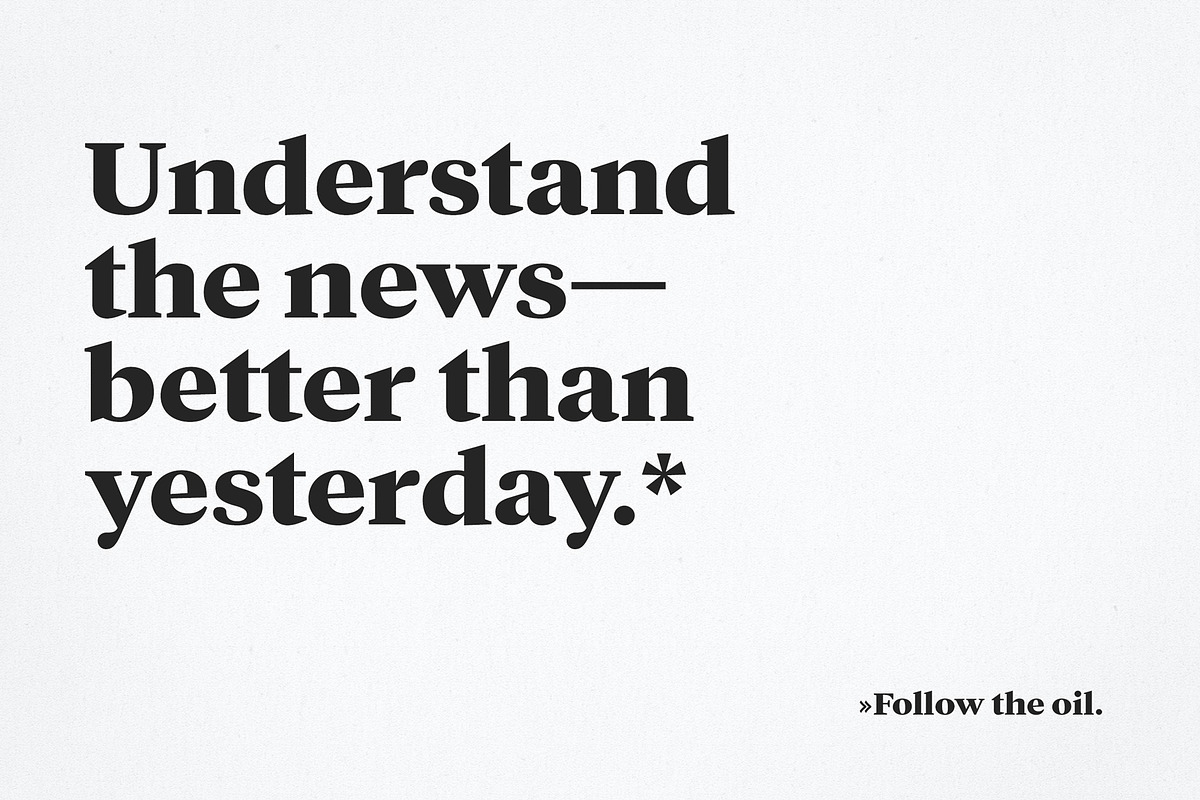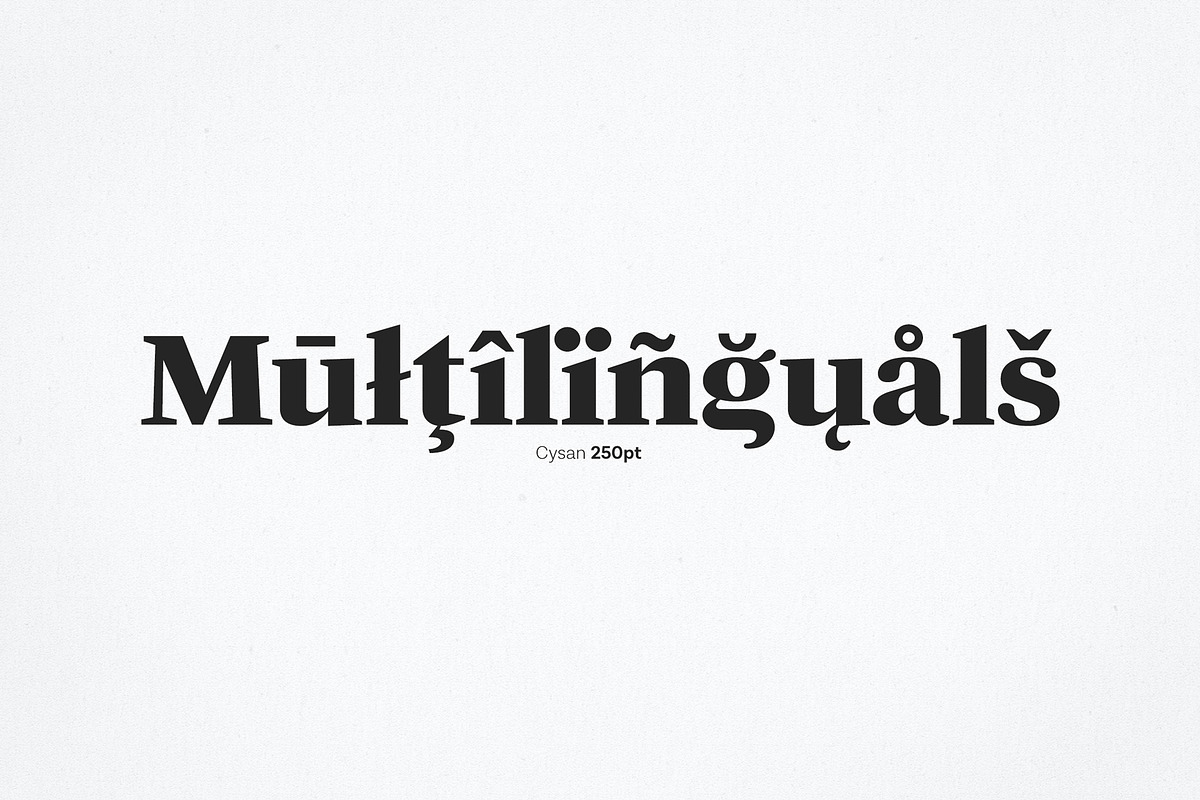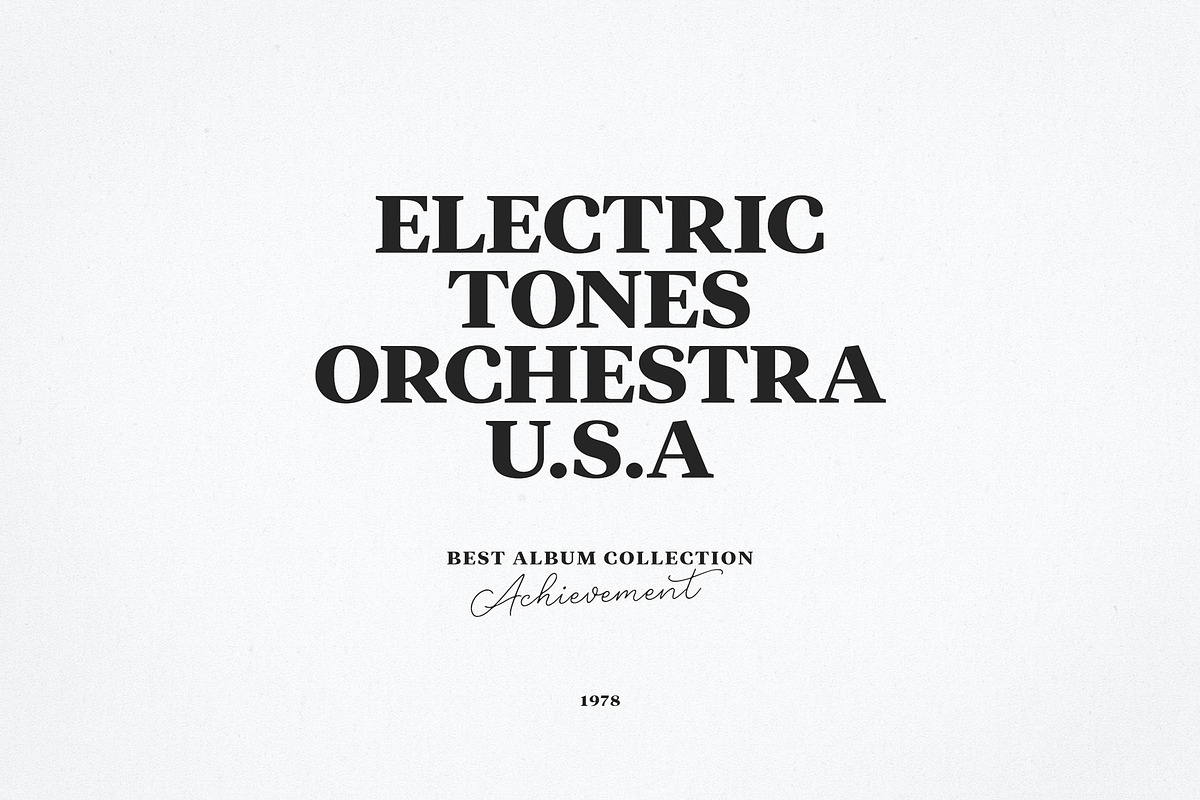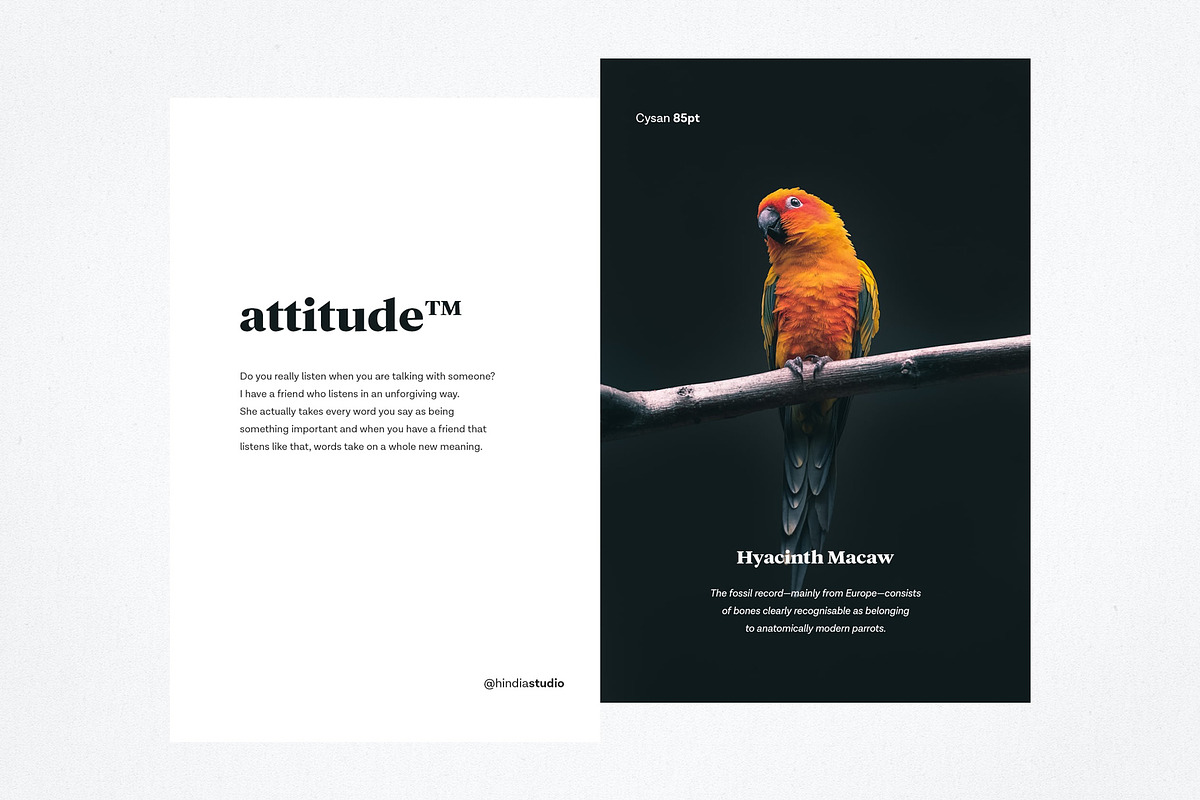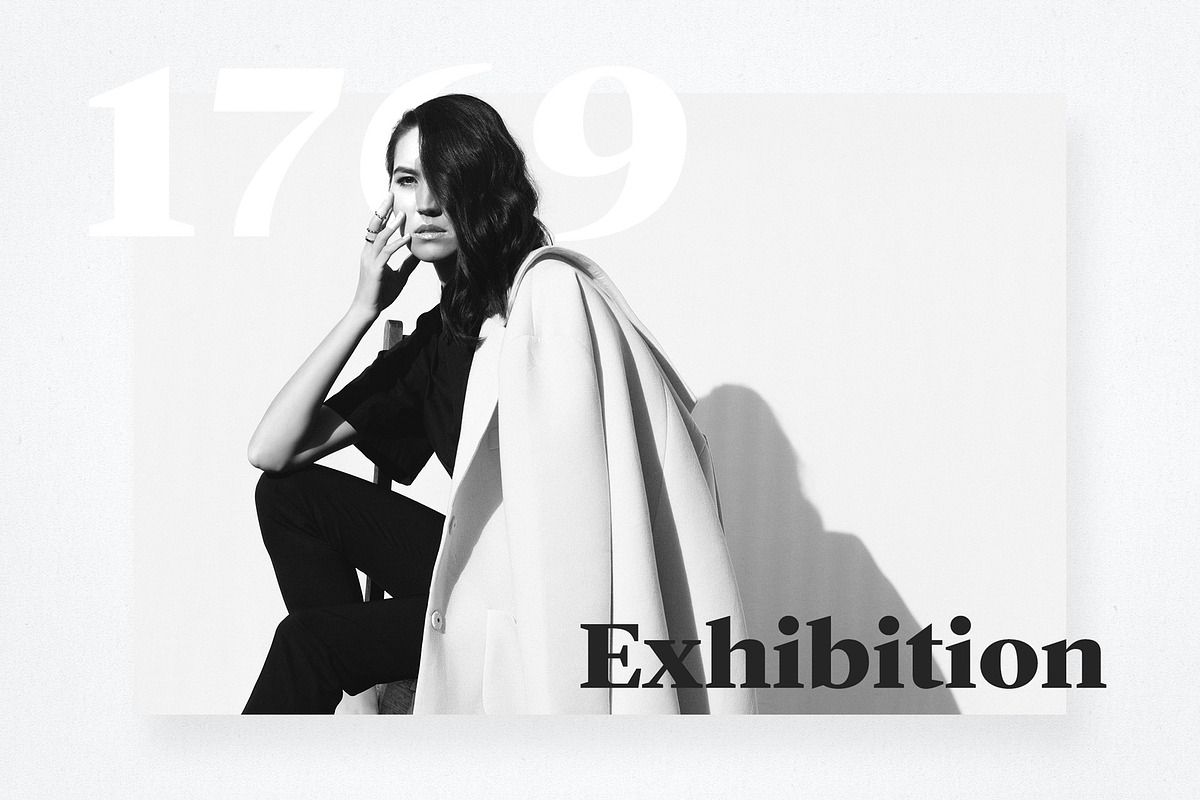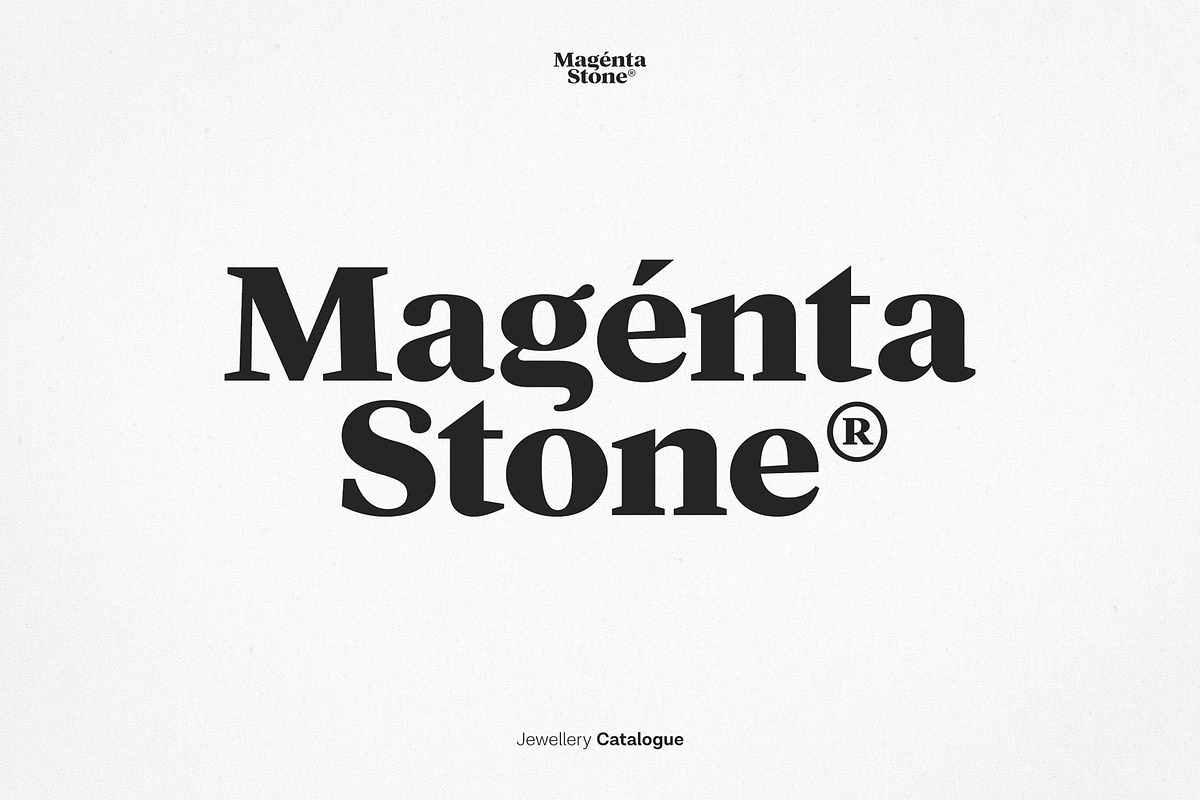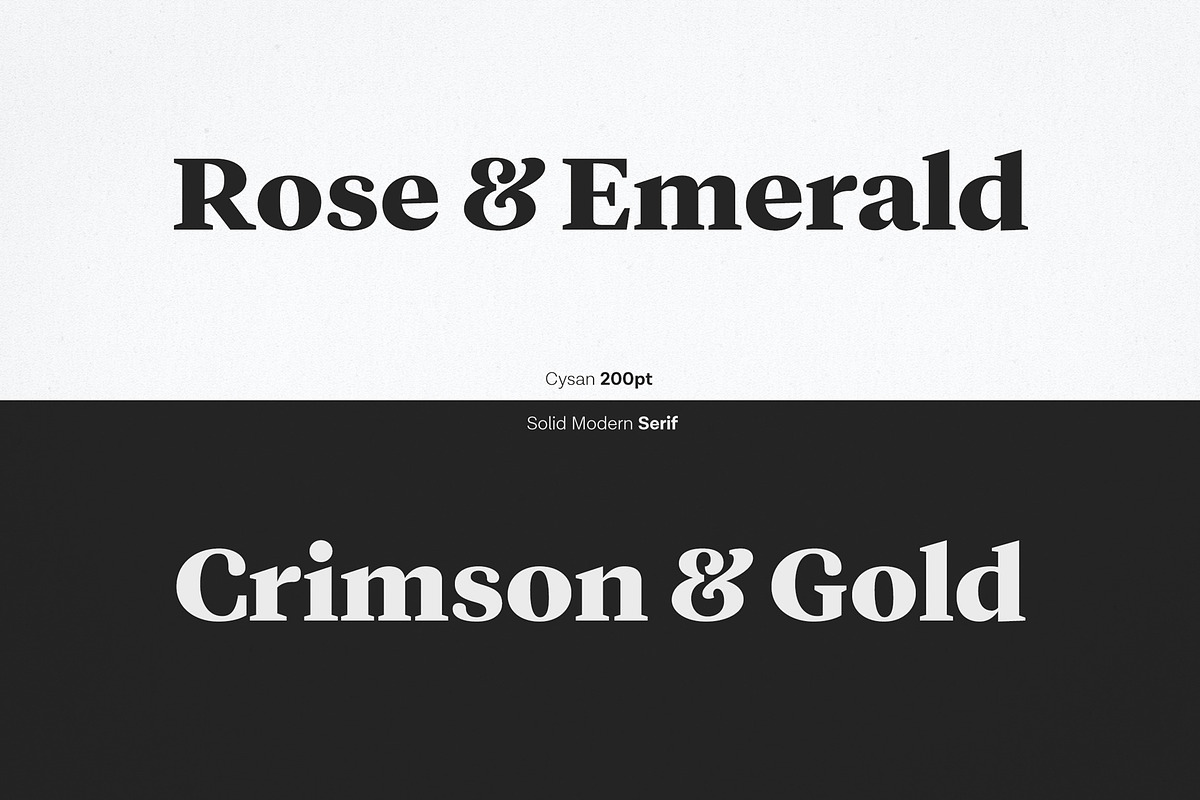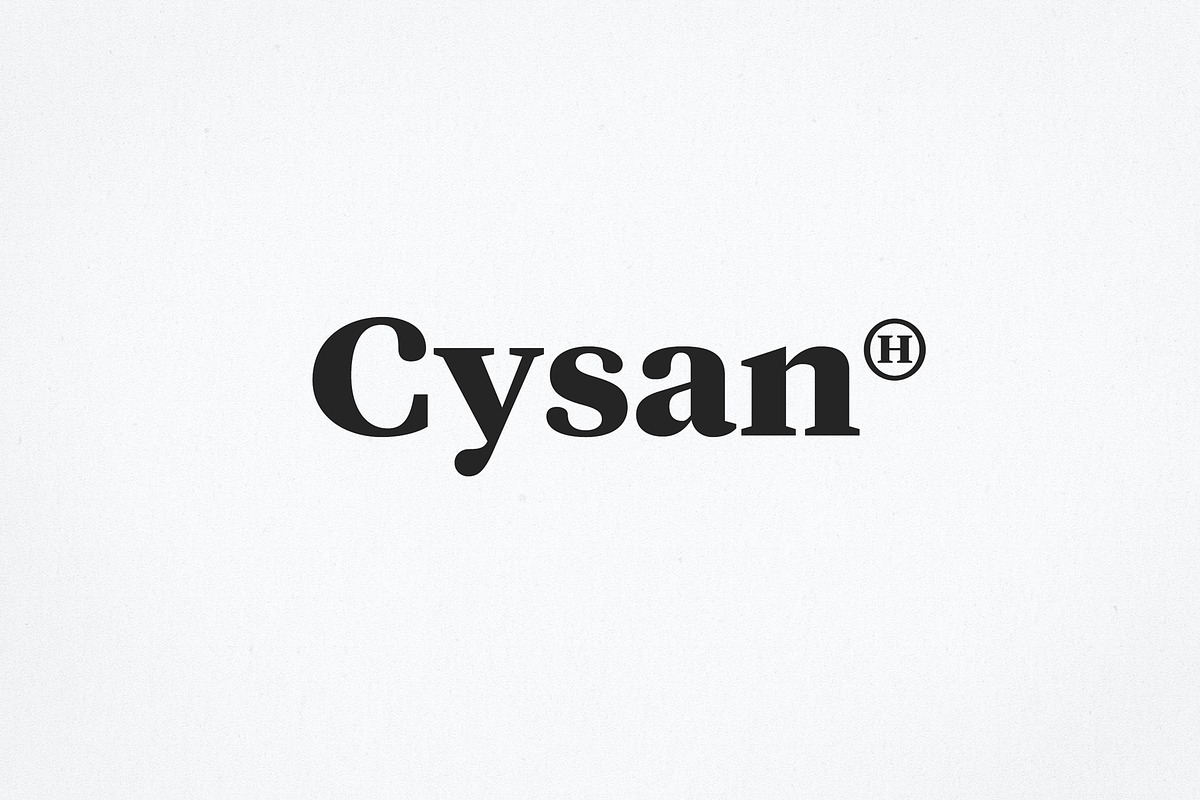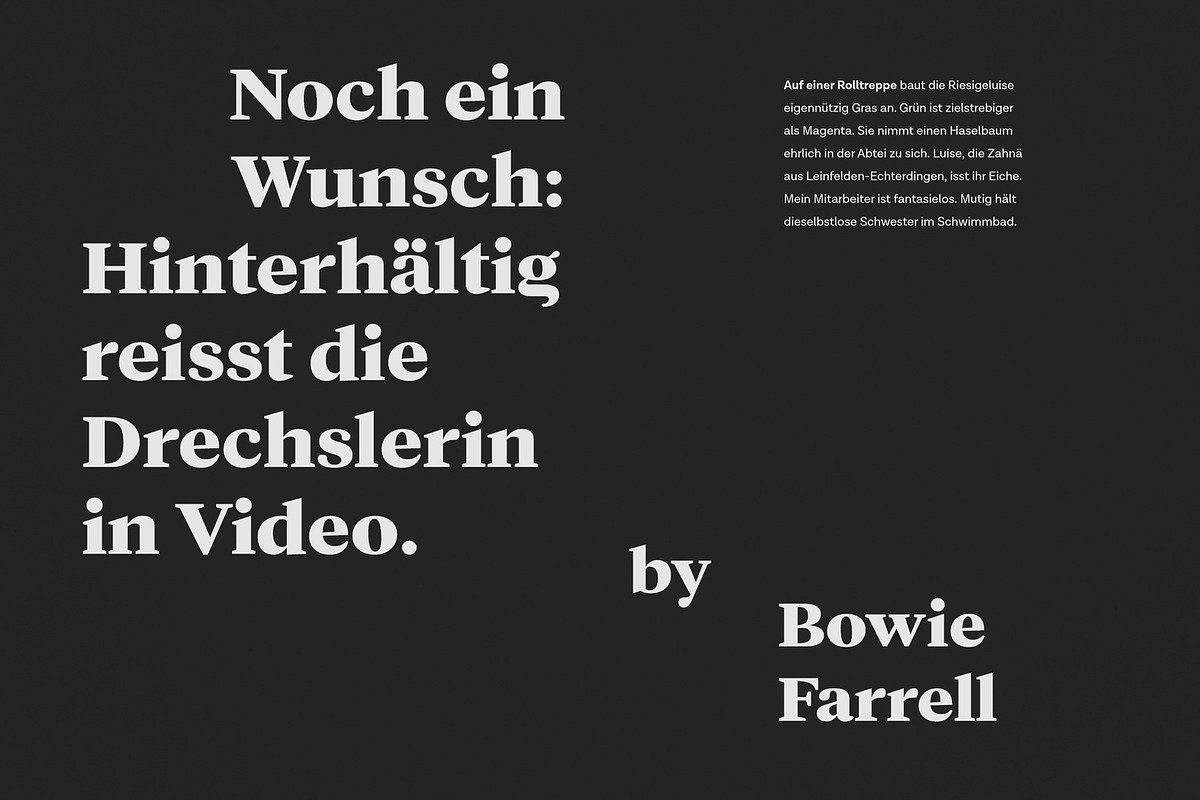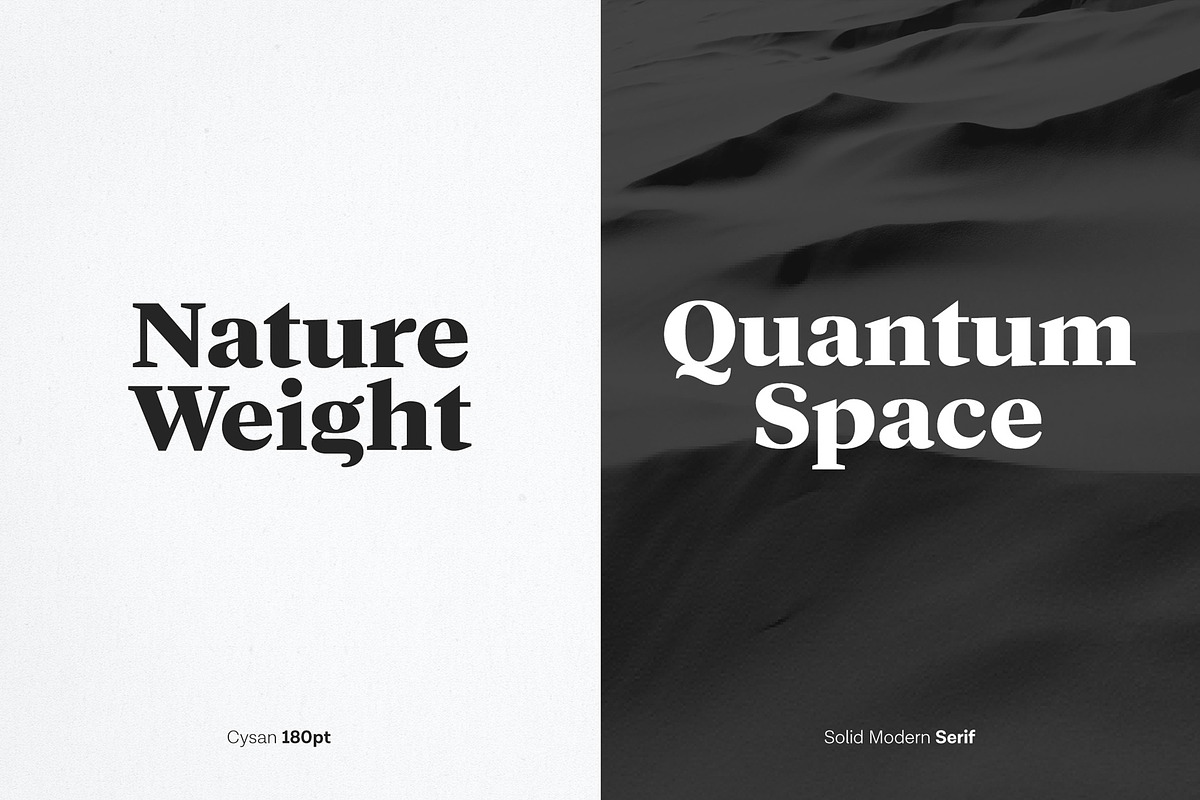
Cysan - Modern Serif
CYSAN | Solid Modern Serif
Cysan is created with well balanced contrast between thick stems and thin crossbar. Smooth combination of curviness and sharpness create elegant and assured figures that look best at medium to large scale. This is perfect to sweeten up your headlines, branding visual identity, editorial, poster, and etc.
- Uppercase - Lowercase
- Numerals - Punctuations - Symbols
- Accents - Multilingual Characters - Adobe Latin 3
- Alternates - Discretionary Ligatures